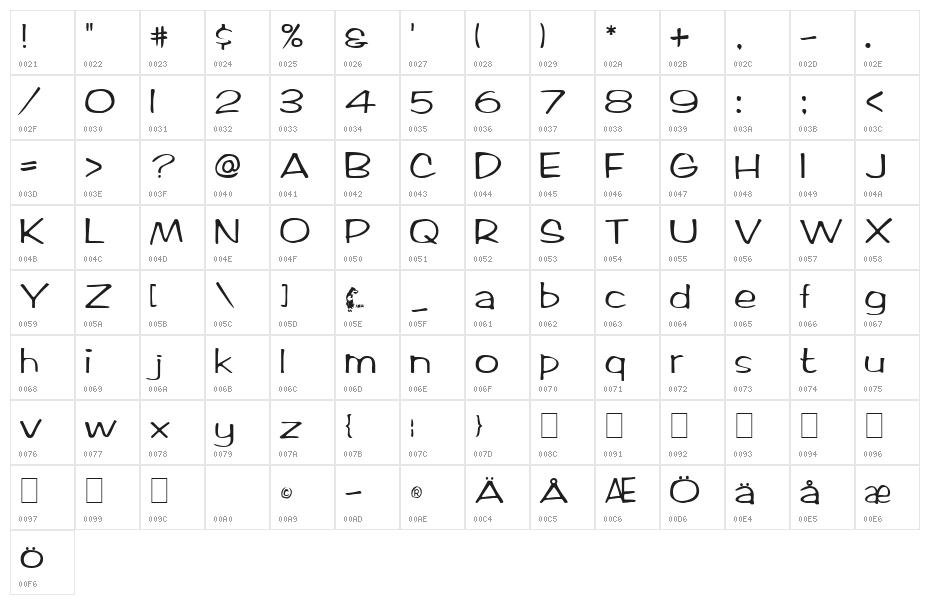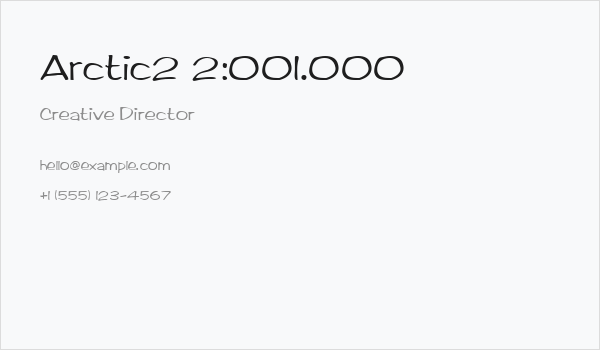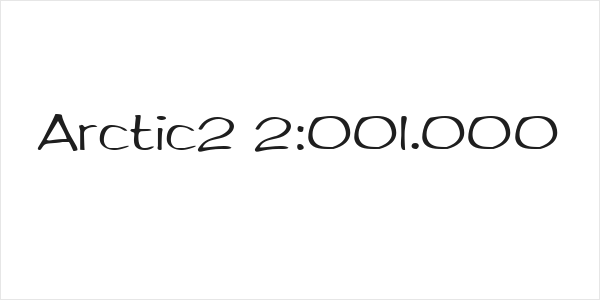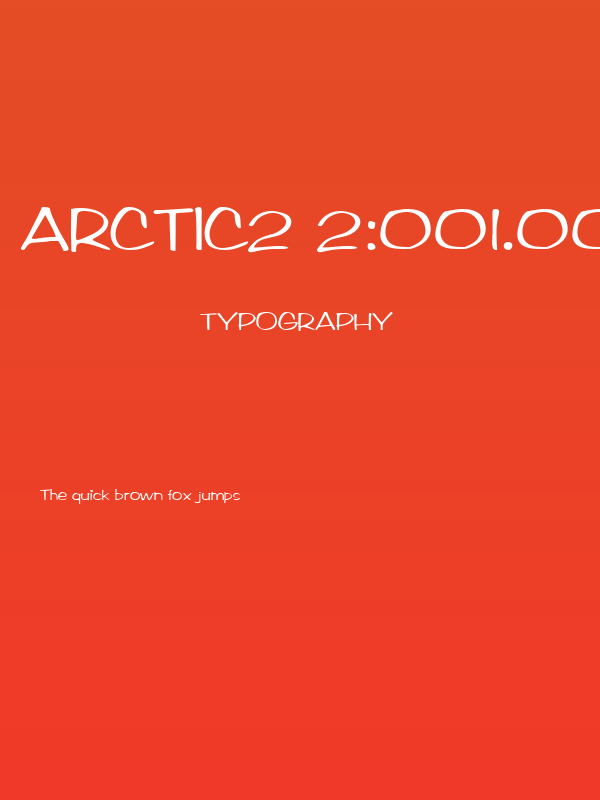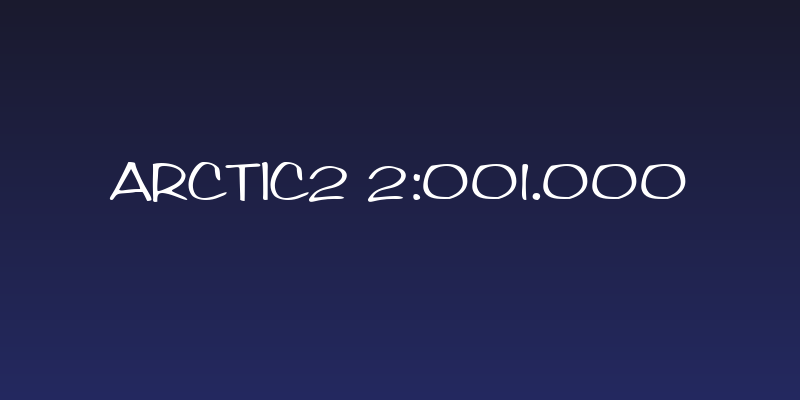
Arctic2 2:001.000 Font
Arctic2 2:001.000 Description
This playful and whimsical font features rounded, flowing characters that convey a sense of fun and creativity. The uppercase letters are bold and slightly irregular, giving them a hand-drawn appearance. The lowercase letters maintain a consistent style with smooth curves and a friendly demeanor. Numbers and special characters are designed to match the overall playful aesthetic, making them suitable for a variety of informal and creative projects. The font's unique style is characterized by its casual and approachable look, making it ideal for projects that require a touch of personality and charm.
| Use Case | Logos, Headlines, Informal Text |
| Proposed Projects | Ideal for children's books, playful branding, greeting cards, and creative posters. |